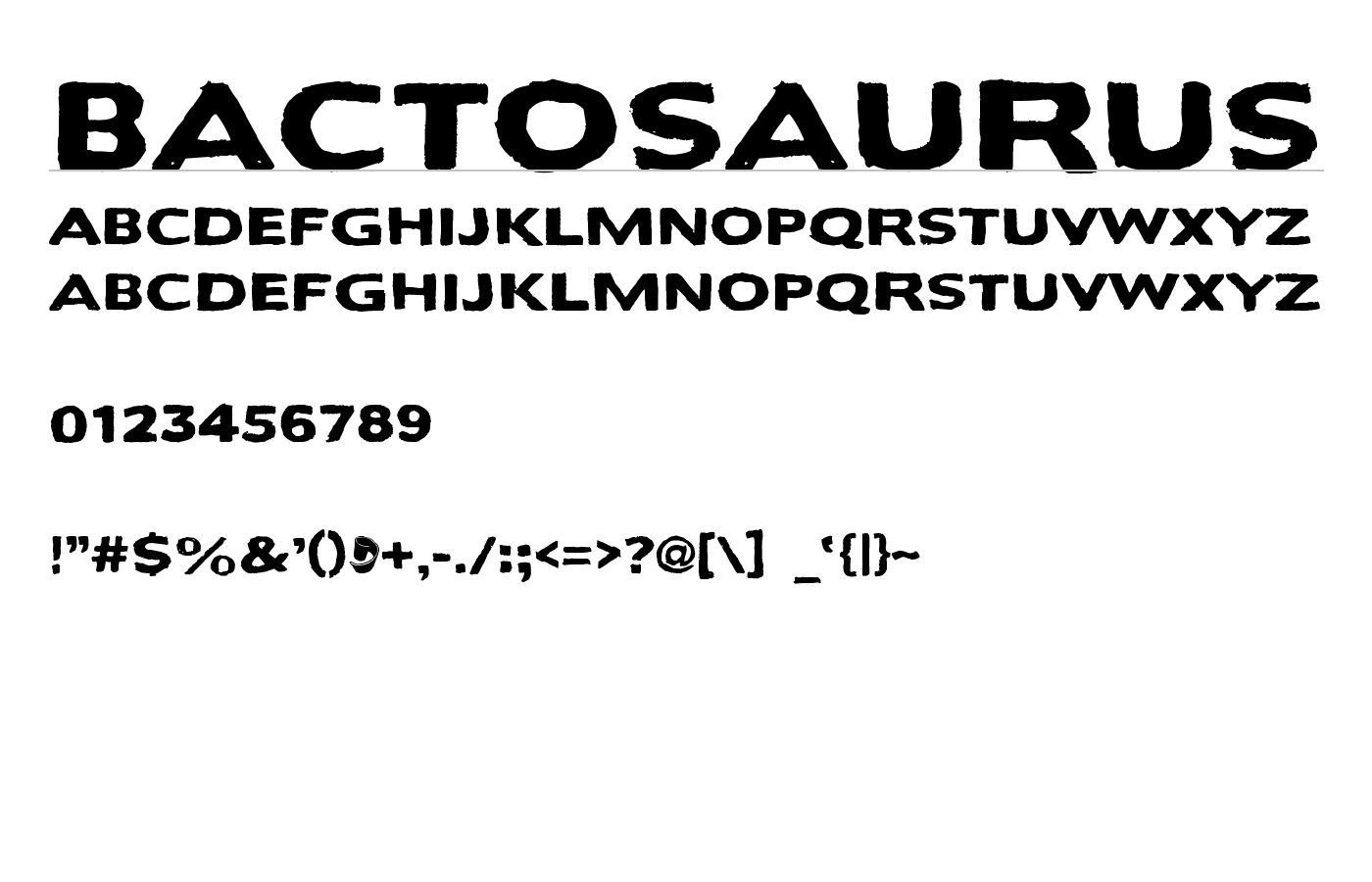
Bactosaurus is a bold, rough-edged sans serif font with a playful and adventurous character. Its uneven, hand-crafted texture and strong, compact letterforms give it a dynamic, organic feel that works great for creative branding, posters, and headlines where a rugged, energetic vibe is desired. This font stands out with its unique texture and strong presence, adding personality to designs needing a fun yet impactful touch.
Bactosaurus Font